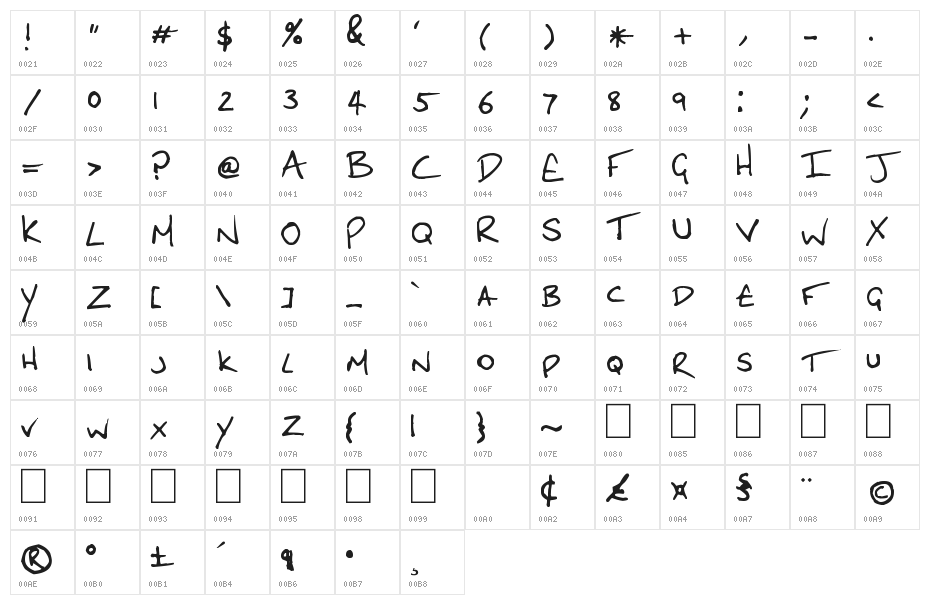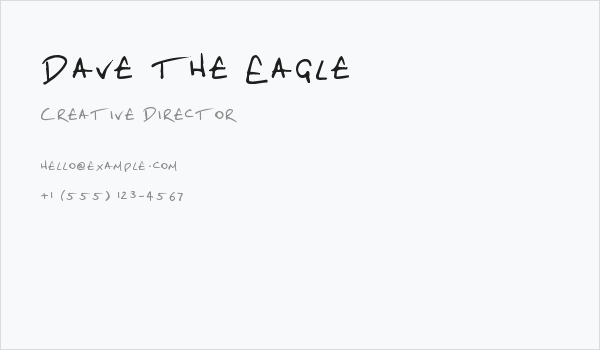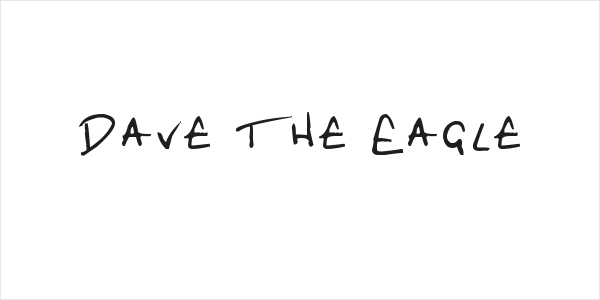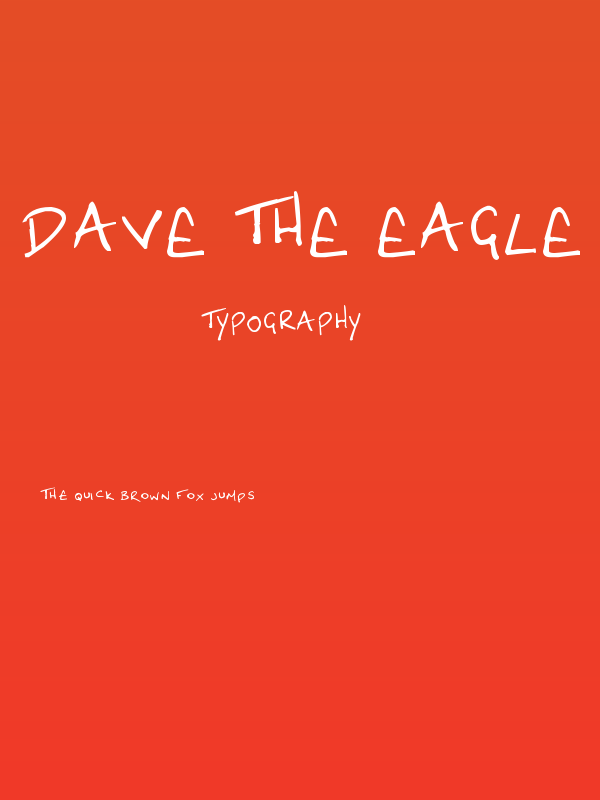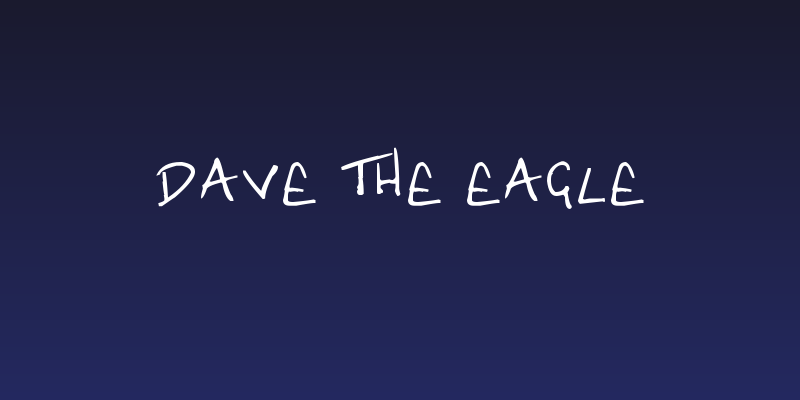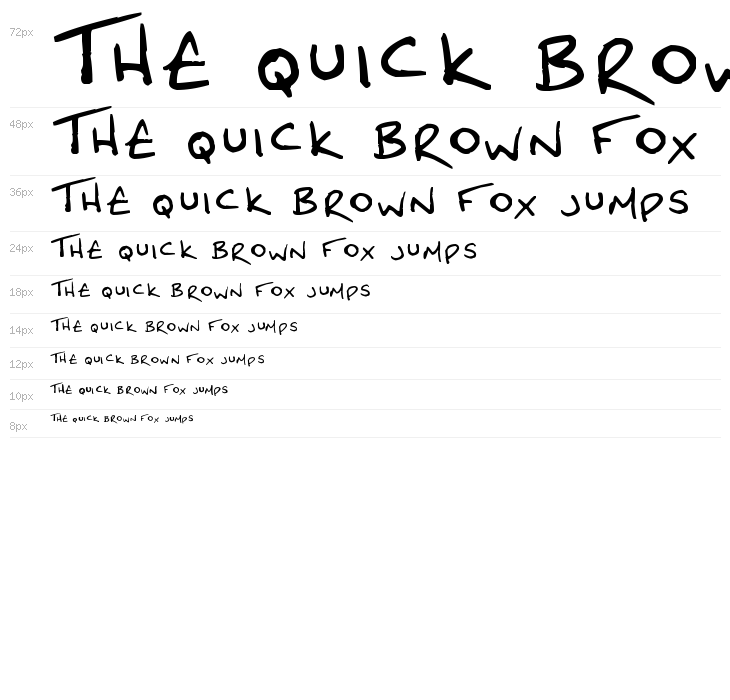
Dave the Eagle Font
Dave the Eagle Description
This font features a casual, handwritten style that exudes a sense of informality and approachability. The letters are slightly irregular, mimicking the natural flow of handwriting, which adds a personal touch to any text. The uppercase and lowercase letters are distinct yet harmonious, maintaining a consistent style throughout. Numbers and special characters are crafted with the same playful and relaxed aesthetic, making them blend seamlessly with the alphabet. The overall appearance is dynamic and lively, suitable for projects that require a human touch.